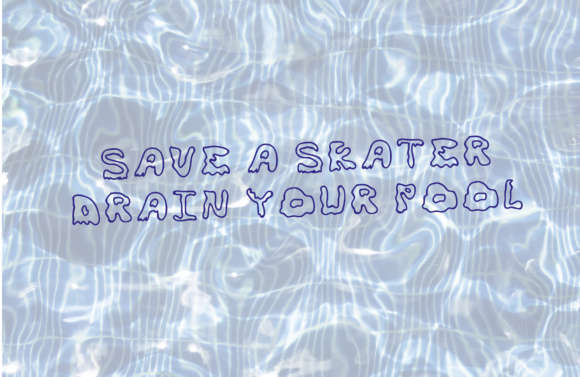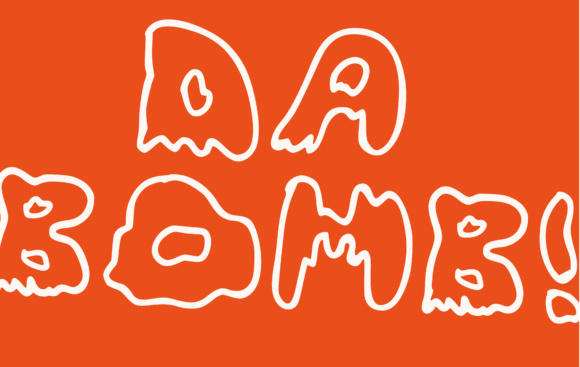
Introduction to Skater Skank Font Font
Fonts play a crucial role in design, and the Skater Skank Font font is a typeface that brings both character and versatility to any project. Whether you’re working on a branding project, a website, or a print design, the Skater Skank Font font offers a unique style that can elevate your work.
Skater Skank is inspired by the graphics, stickers and artworks on urban sports.
Froms Santa Cruz to Volcom, itβs hard not to take note of the illustration and branding styles of some of the worlds best skate, surf and bmx brands With that in mind βSkater Skankβ comes to park to see if it has what it takes to be impressive and make an impact.
Key Features of Skater Skank Font Font
Why Choose Skater Skank Font Font?
The Skater Skank Font font is more than just a typeface β it’s a design tool that helps you communicate your message with style and clarity. Its unique character set and versatile design make it suitable for a wide range of applications, from elegant invitations to bold headlines.
With its carefully crafted letterforms and balanced proportions, the Skater Skank Font font ensures readability and visual appeal across all mediums.
What makes Skater Skank Font font special?
The Skater Skank Font font stands out with its unique design, exceptional readability, and versatility across various design applications.